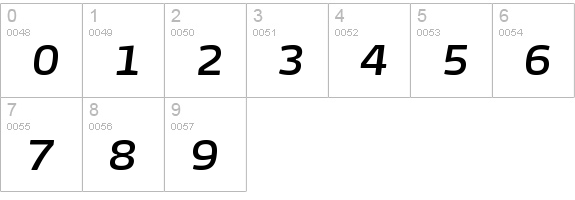
Introducing MaxTF SemiBoldItalic font - a bold and dynamic typeface that exudes confidence and modernity. The distinctive slant and strong weight of this font make it perfect for titles, headlines, and branding projects that require a touch of sophistication. The semi-bold weight strikes the perfect balance between impact and readability, making it versatile for a wide range of design applications. What sets MaxTF SemiBoldItalic font apart is not just its striking design, but also its accessibility. This font is available for free download at FontsMarket.com, making it an ideal choice for designers looking to elevate their projects without breaking the bank. Whether you're working on a website, poster, or logo design, MaxTF SemiBoldItalic font is sure to make a bold statement while remaining effortlessly legible. With its sleek curves and elegant italics, MaxTF SemiBoldItalic font adds a touch of flair to any design project. Download this font for free today and unleash its creative potential in your next project!